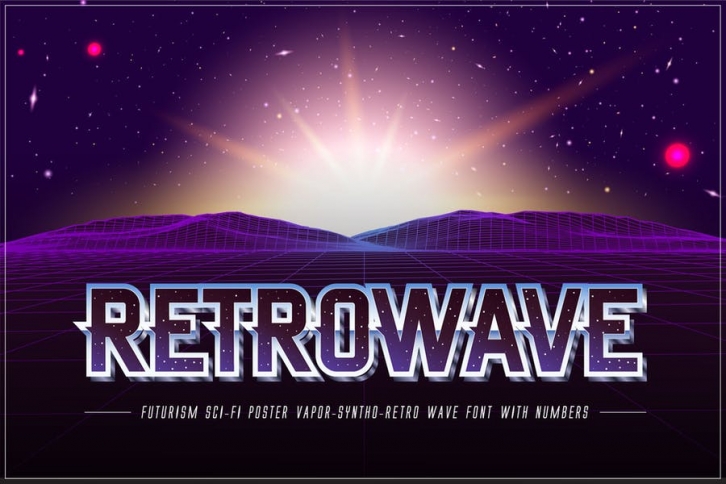
This pack contains Retrowaver trendy Vapor wave, Synth wave, Retro wave Styled Color OpenType Font in .OTF file format with letters, numbers and punctuation (Adobe Illustrator 2018+).